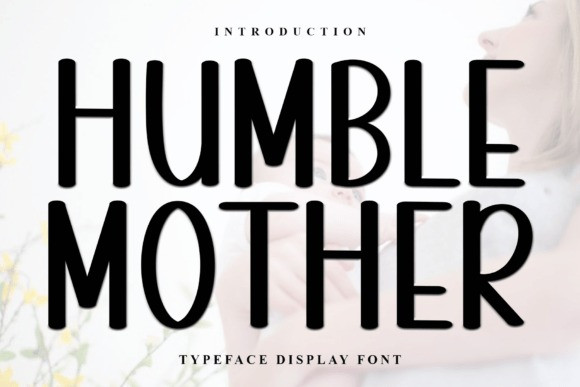
Humble Mother Font
Humble Mother Font Elegant and refined, this thin display font brings a modern minimalist touch to your designs. With its clean lines and delicate letterforms, it’s ideal for upscale branding, fashion editorials, invitations, and contemporary layouts. Its light weight offers sophistication and subtlety, making it perfect for projects that call for a stylish, high-end aesthetic.